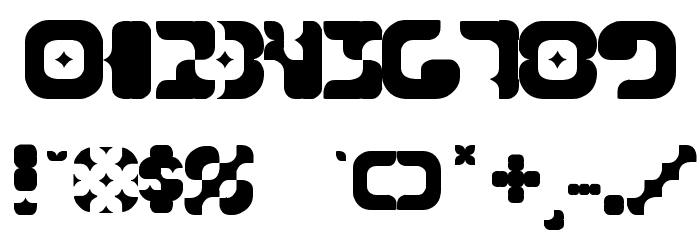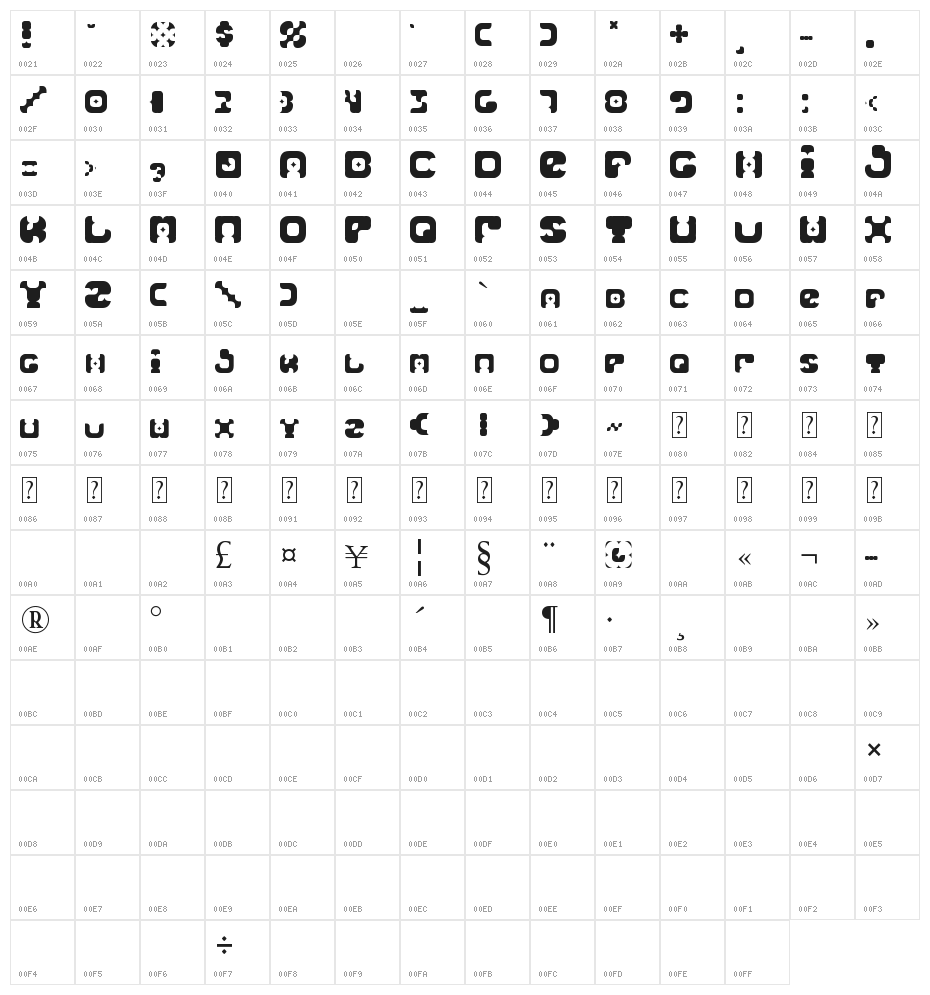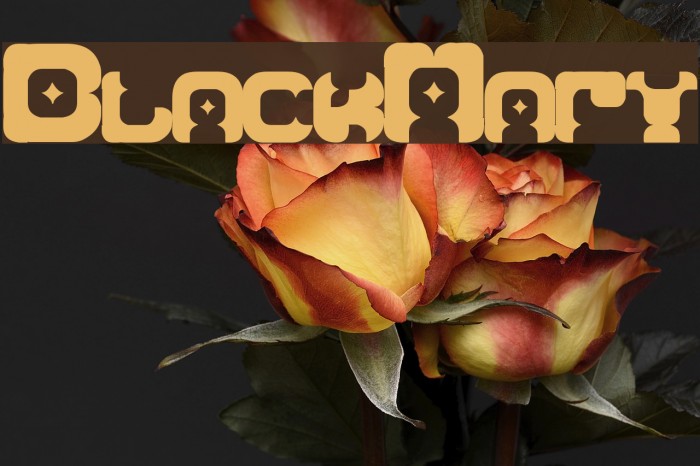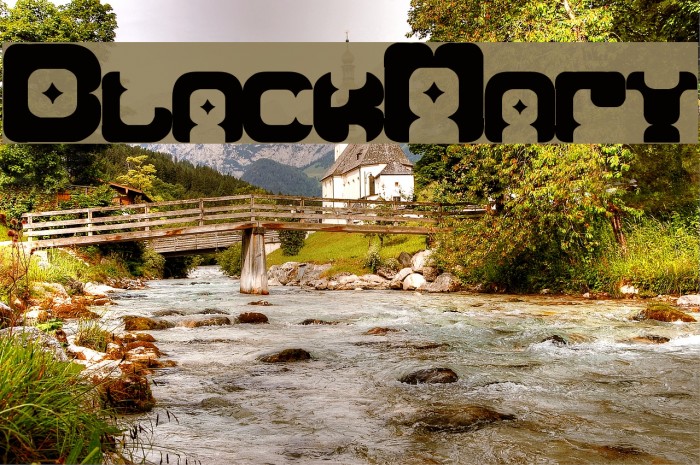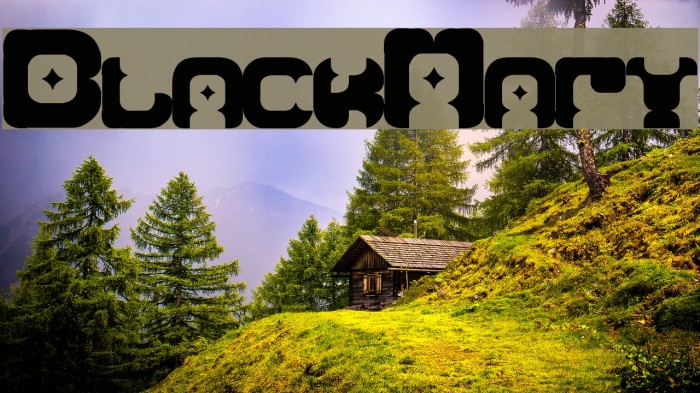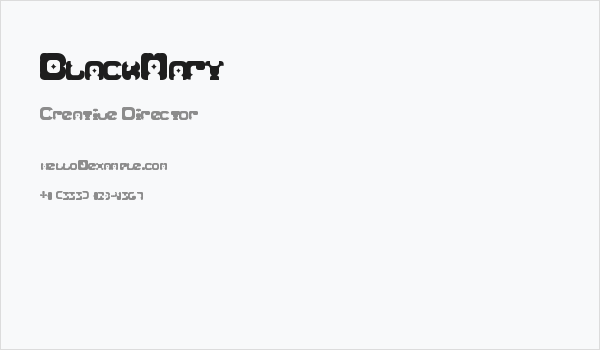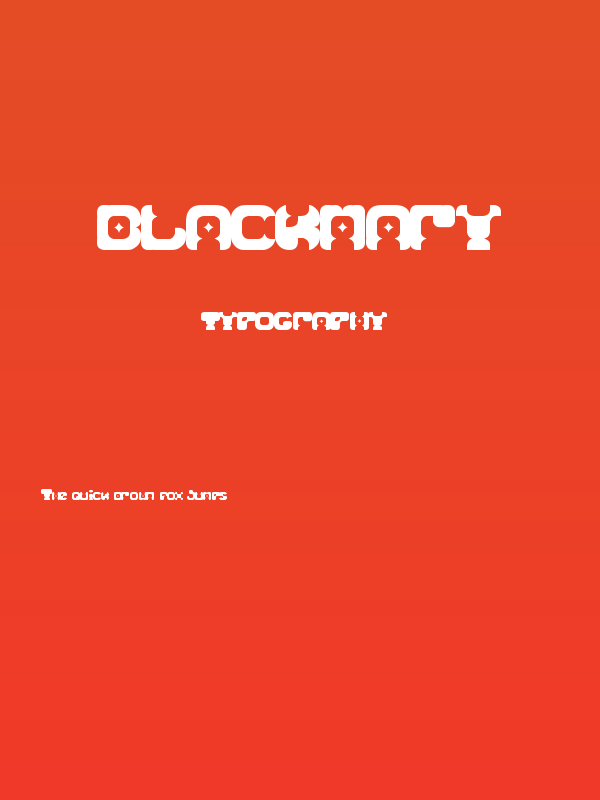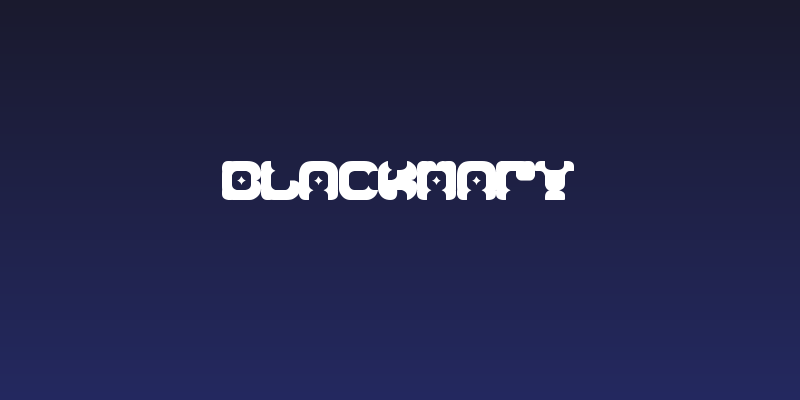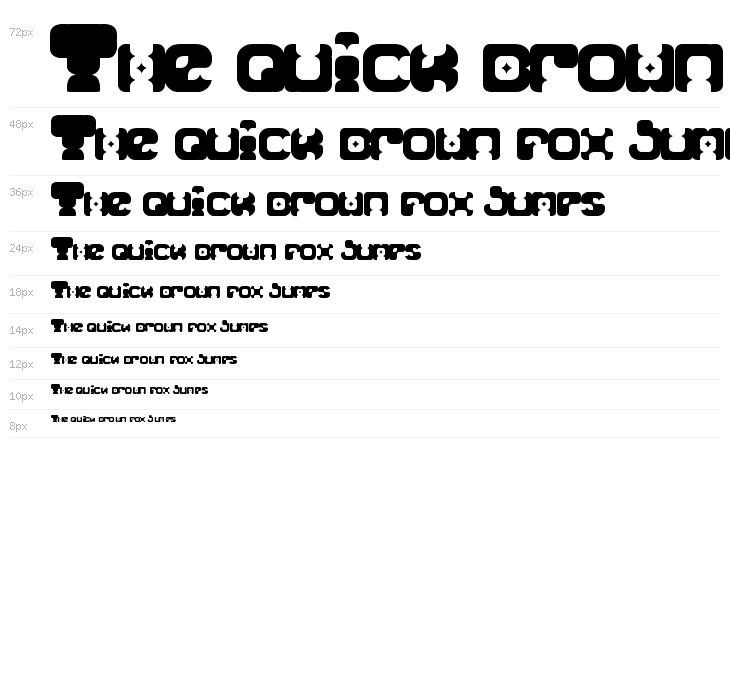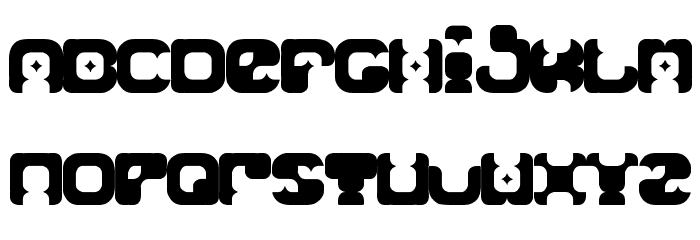
BlackMary Font
BlackMary Description
This font features a bold and geometric design with a distinctively modern and futuristic aesthetic. The characters are constructed with thick, uniform strokes, creating a strong visual impact. Each letter is uniquely stylized with circular cutouts and angular edges, giving it a decorative and almost industrial feel. The font maintains a consistent weight throughout, emphasizing its boldness. The spacing between characters is tight, contributing to its compact appearance. This font is ideal for projects that require a standout, eye-catching typeface with a contemporary edge.
| Use Case | Logos, Headlines |
| Proposed Projects | Perfect for branding, posters, album covers, and any design that needs a strong, modern typeface. |